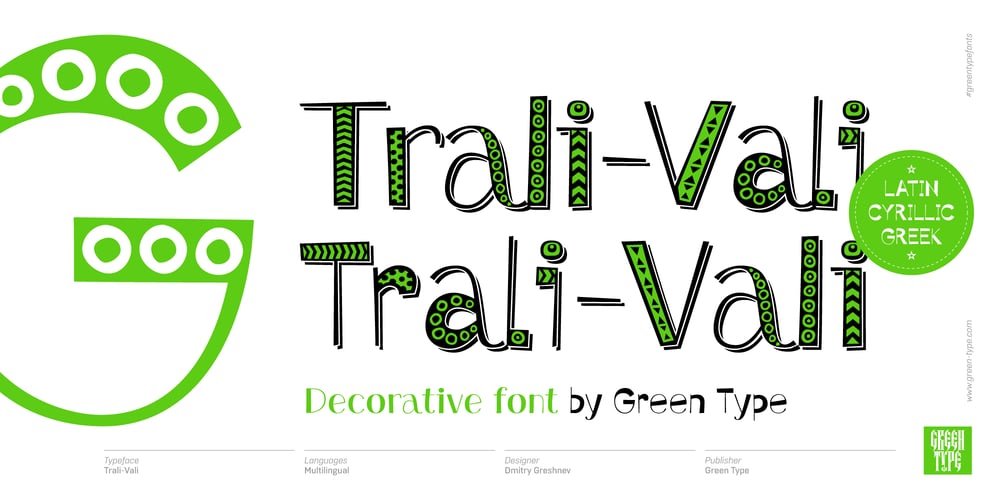
Tral Vali
Tral Vali font
Tral Vali Font Family was designed by Dmitry Greshnev and published by Green Type. Tral Vali contains 5 styles and family package options. Trali-Vali is a playful, decorative font that is well suited for creating greeting cards, titles in children’s books and cartoons, as well as in the design of any children’s products from packaging to interior decoration. Trali-Vali has several layers (styles) due to which it can be filled with different colors.